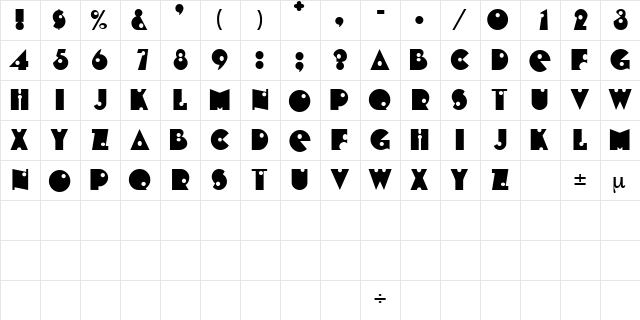
CheapShotDisplayCapsSSK Regular
Design Context for CheapShotDisplayCapsSSK Typeface
CheapShotDisplayCapsSSK is built around its visual character rather than neutral utility — its distinctive forms are designed to make an impression at display sizes.
Font Pairing: Pair with a clean neutral sans-serif for body copy to let CheapShotDisplayCapsSSK's character lead without overwhelming the composition.
Pro Tip: Use CheapShotDisplayCapsSSK exclusively at display sizes — it was designed to be seen, not read at length. Let a neutral companion handle body copy.